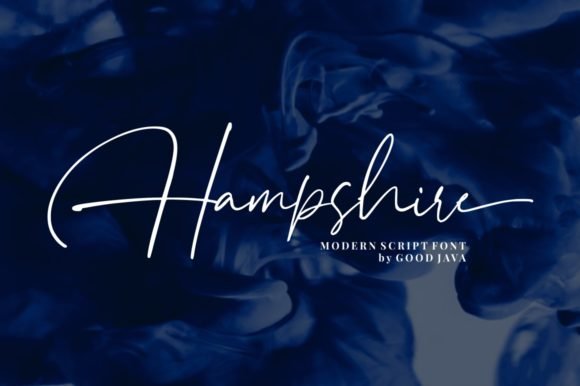
Discover the Magic of Hampshire Font
Remember that moment when you’re brainstorming ideas for a new design project and everything just clicks? You know, when the perfect concept pops into your head, and you can’t wait to bring it to life? That’s exactly the kind of creative spark that Hampshire Font is designed to ignite.
This gorgeous script font is more than just a pretty face – it’s a powerful tool that can elevate any design idea into a true standout. With its unique charm and modern flair, Hampshire Font is the perfect addition to any designer’s toolkit. Whether you’re working on a branding project, creating a wedding invitation, or designing a website, this font is sure to add a touch of sophistication and elegance.
So, why is Hampshire Font so valuable for designers? For starters, it offers a level of versatility and creativity that’s hard to find in other fonts. With its endless possibilities, you can create unique and memorable designs that truly reflect your vision.
Hampshire Font Key Features
- Unique Characteristics: Hampshire Font features a unique blend of traditional and modern elements, making it suitable for a wide range of design projects, from historical to contemporary applications.
Hampshire Font Review
I recently had the chance to work with the Hampshire Font, and I have to say, it’s a unique and interesting typeface. Here are my thoughts on what works well and what doesn’t:
- The Hampshire Font has a beautiful, elegant feel to it. It’s perfect for projects that need a touch of sophistication and refinement.
- The font’s script and handwritten elements add a lovely, personal touch to any design. It’s great for creating invitations, quotes, or other custom typography pieces.
- The font’s versatility makes it suitable for a wide range of applications, from print to digital media.
- The Hampshire Font can be quite ornate, which may make it difficult to read in smaller sizes or at a distance.
- The font’s script elements can be a bit inconsistent in terms of style and flow, which may require some adjustments in design.
Overall, the Hampshire Font is a beautiful and elegant typeface that’s perfect for projects that need a touch of sophistication and refinement. While it may have some limitations, it’s definitely worth considering for the right design project.
Hampshire Font is a versatile font that can be used in a variety of applications. Here are some tips and common use cases:
- Use Hampshire Font for titles and headings to add a touch of elegance and sophistication.
- Use it in combination with other fonts to create a unique and visually appealing design.
- Experiment with different font sizes and colors to find the perfect combination for your design.
Alternatives to Hampshire Font
Playfair Display is a luxurious, high-end font that is perfect for creating a sense of elegance and sophistication. It features intricate details and flourishes, making it ideal for use in high-end branding, luxury goods, and fine dining. Compared to Hampshire Font, Playfair Display has a more ornate and classical feel, while Hampshire Font has a more rustic and vintage feel.
Great Vibes is a modern, elegant font that is perfect for creating a sense of sophistication and refinement. It features a clean and minimalist design, making it ideal for use in corporate branding, advertising, and editorial design. Compared to Hampshire Font, Great Vibes has a more streamlined and modern feel, while Hampshire Font has a more distressed and vintage feel.
Alex Brush is a handwritten font that is perfect for creating a sense of warmth and personality. It features a unique, brush-like quality, making it ideal for use in creative branding, packaging, and advertising. Compared to Hampshire Font, Alex Brush has a more playful and expressive feel, while Hampshire Font has a more rustic and vintage feel.